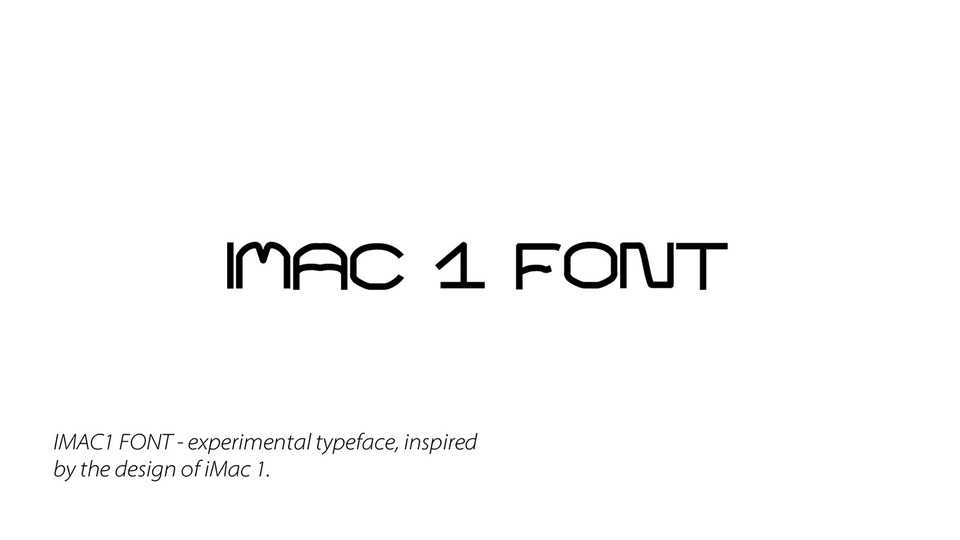
Download iMac 1 font, an experimental display typeface, inspired by the design of iMac 1. The font was designed on grid based on the main shape of computer.
Designer: Elena Shturba